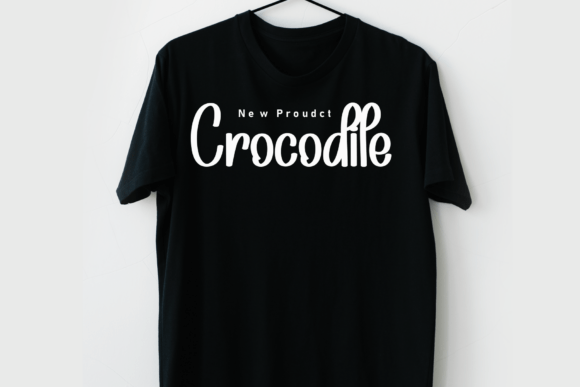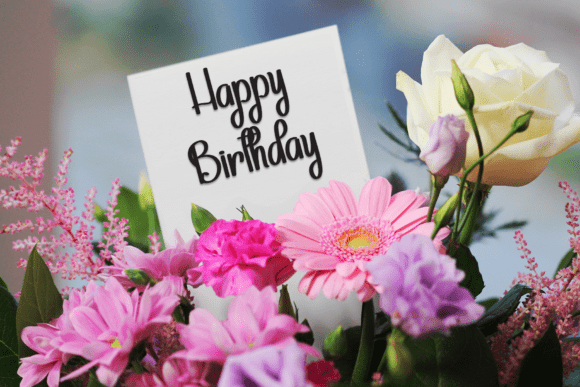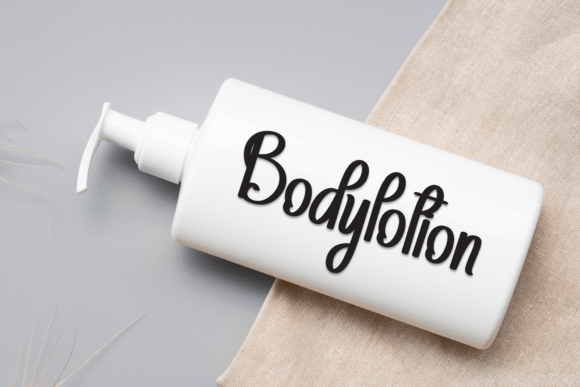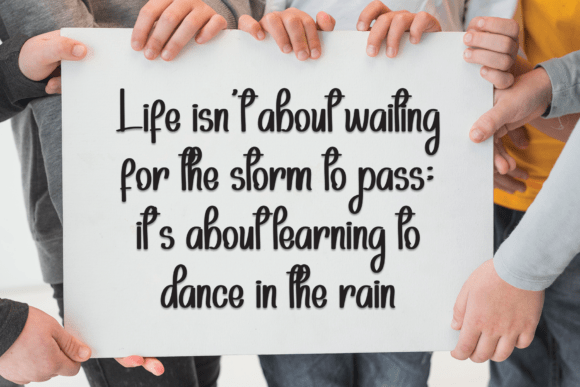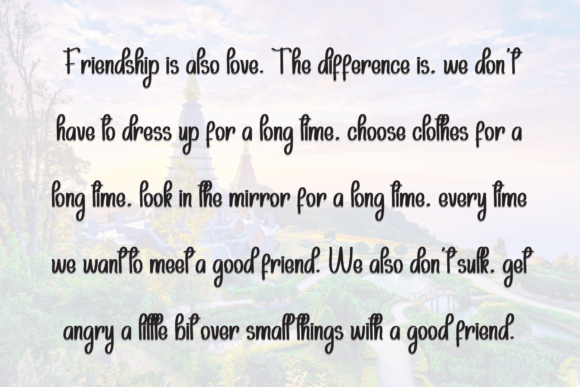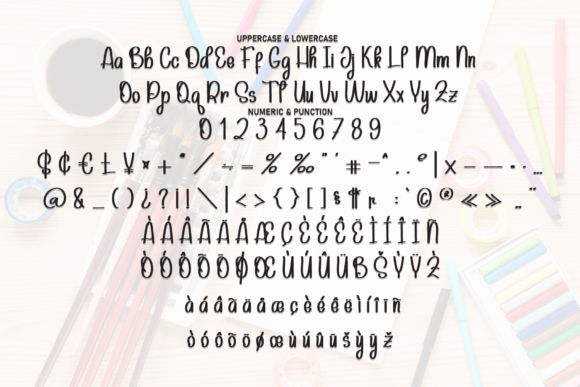
The Warmth of Coloring Font: A Designer’s New Best Friend
I’ll never forget the time I was working on a branding project for a cozy coffee shop. I had spent hours agonizing over the perfect color palette and logo design, but something was still off. That’s when I realized the font I was using was all wrong – it was too formal, too cold. I needed something that would bring warmth and approachability to the design. That’s when I stumbled upon Coloring Font, and it was love at first sight! ✨
- ✅ Clean and neat structure that makes it easy to read
- ✨ Approachable style that feels genuine and inviting
- 💡 Balanced letterforms that offer readability and charm
- 🎨 Perfect for branding, headlines, and everyday designs
While Coloring Font is an amazing addition to any design project, there are a few things to keep in mind. 🤔 For example, it can be a bit too casual for very formal or corporate designs. Additionally, some users may find that the font is not as versatile as they would like, particularly when it comes to creating complex layouts or graphics. ⚠️ However, for most projects, these limitations are minor and easily overcome.
One of the best things about Coloring Font is its OpenType features and glyphs. These allow you to add extra flair to your designs, from stylistic alternates to swashes and ligatures. To access these features, simply:
The Designer Inspiration Behind Coloring Font
According to the designers behind Coloring Font, the inspiration came from a desire to create a font that was both clean and approachable. They wanted to craft a font that would bring warmth and clarity to any design project, without feeling too formal or corporate. The result is a font that’s perfect for designers, crafters, and creative hobbyists alike.
Q: What is Coloring Font best used for?
A: Coloring Font is perfect for branding, headlines, and everyday designs. Its clean structure and approachable style make it ideal for a wide range of projects.
Q: Is Coloring Font suitable for body text?
A: While Coloring Font is primarily designed for headlines and titles, it can also be used for body text in certain contexts. However, it’s best suited for shorter blocks of text or creative projects.